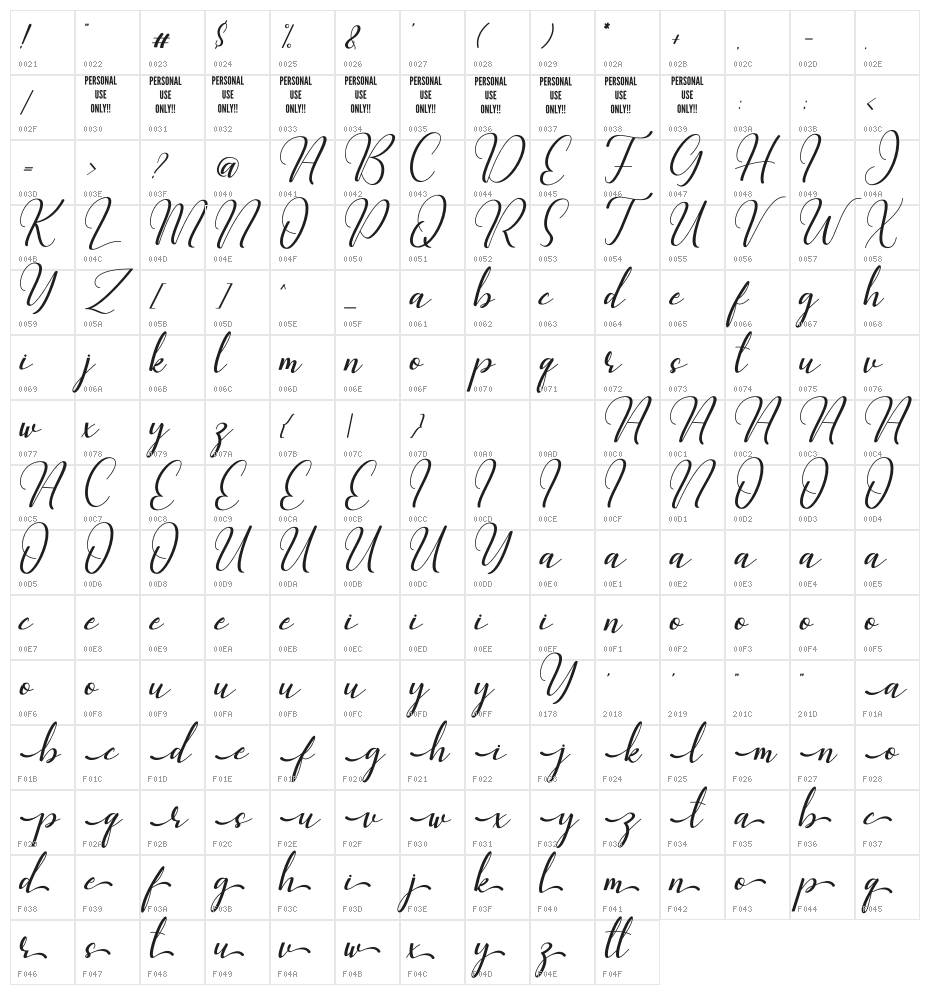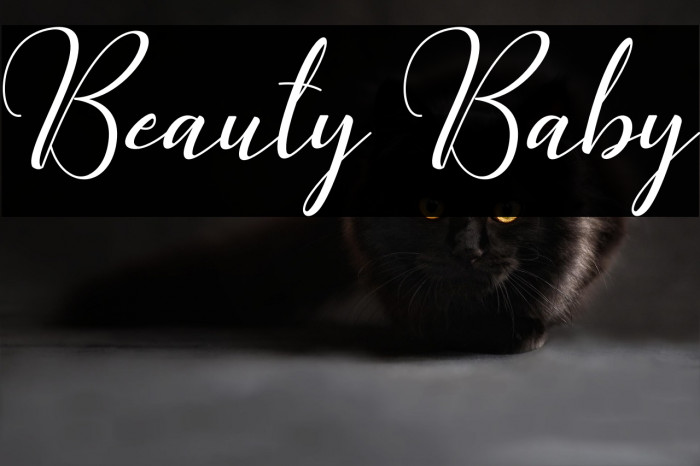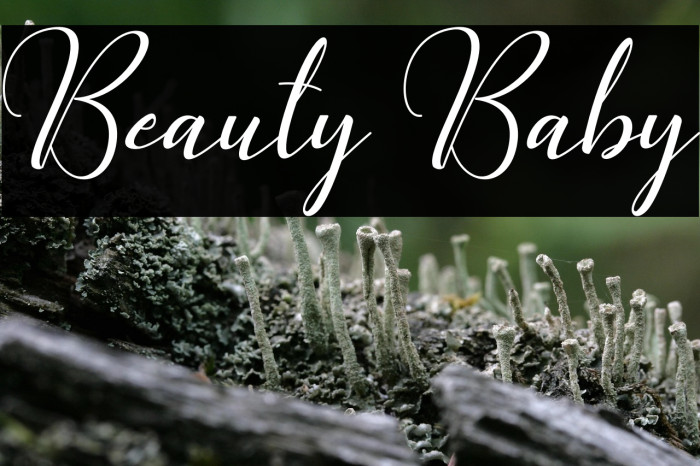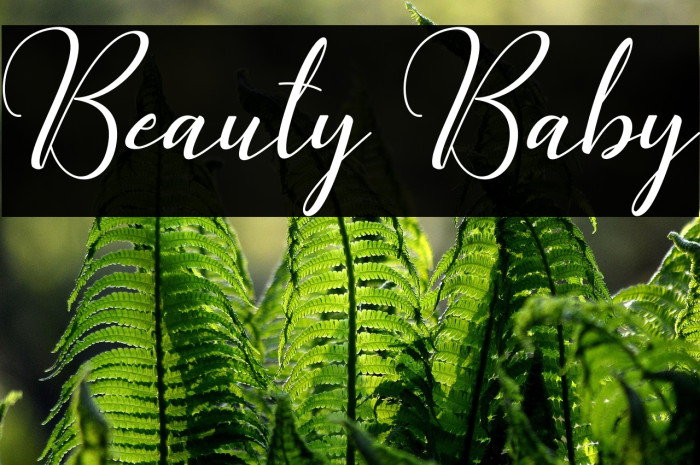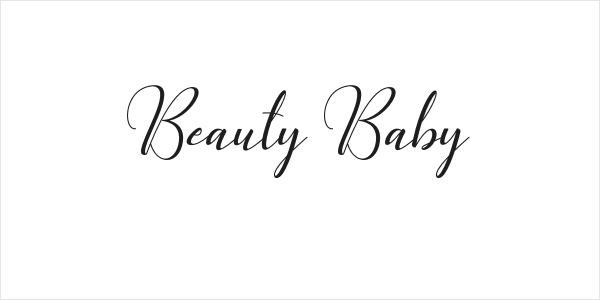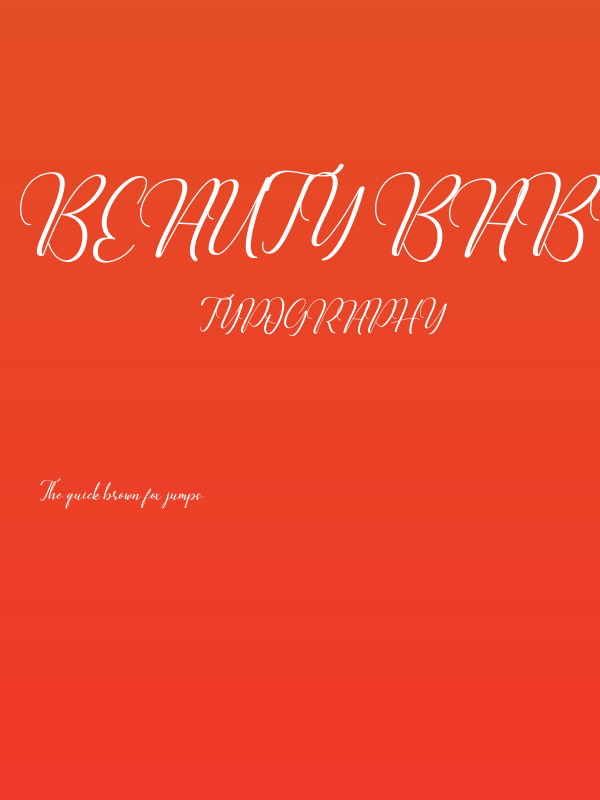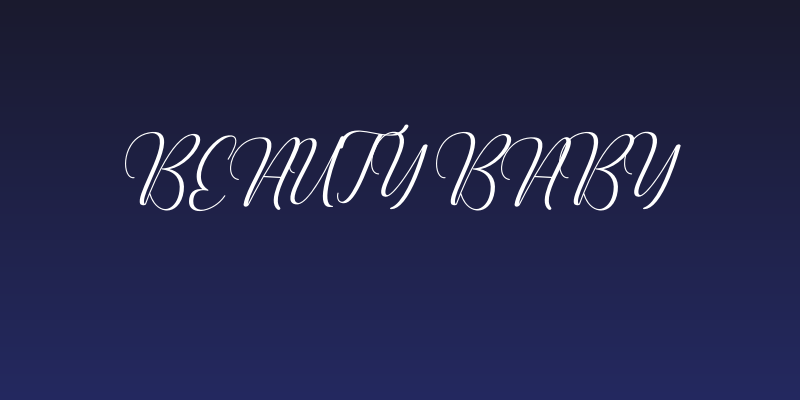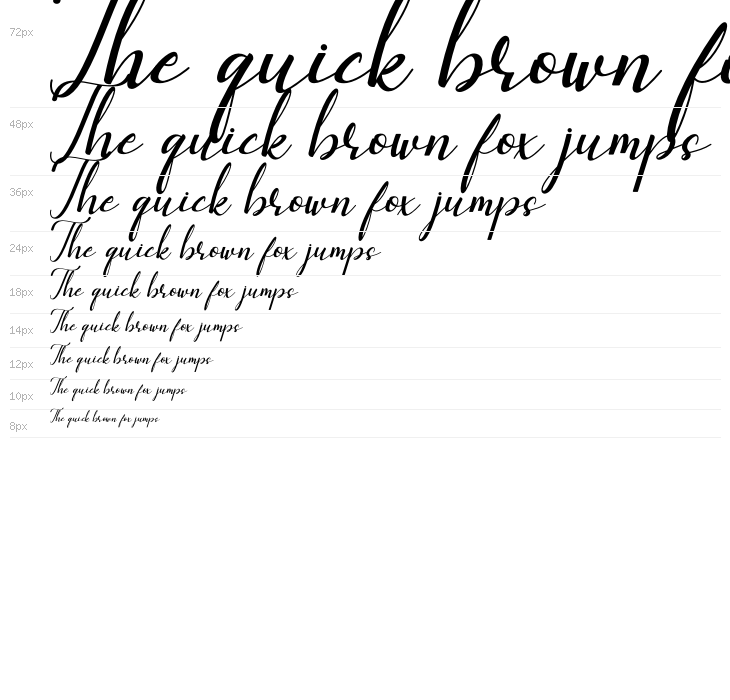
Beauty Baby Font
Beauty Baby Description
This font features an elegant and flowing script style with a modern touch. The uppercase letters are gracefully curved, with a slight slant that adds a dynamic feel. The lowercase letters maintain a consistent flow, enhancing readability while retaining a sophisticated appearance. The numerals and special characters are designed to complement the overall aesthetic, ensuring a cohesive look across all text. The font's high contrast in stroke thickness adds to its visual appeal, making it suitable for various design applications.
| Proposed Projects | Ideal for wedding invitations, branding, luxury product packaging, and elegant logo designs. |